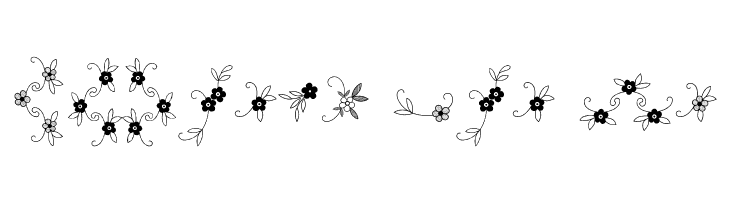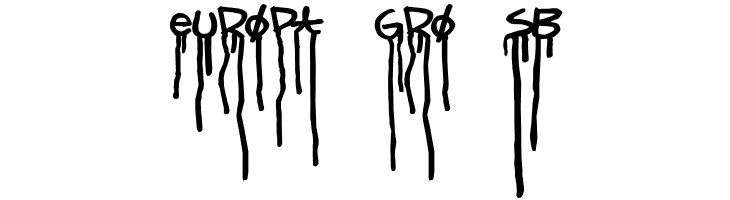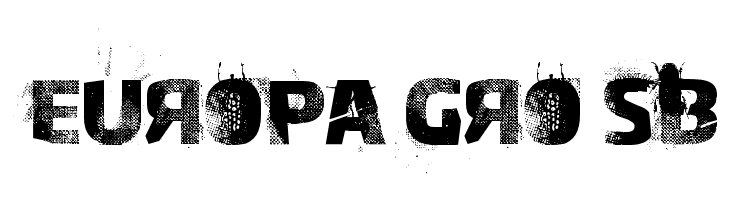
Intricate floral and ornamental patterns with a whimsical, hand-drawn feel.
A dripping, gothic-style font with a bold, artistic flair.
A bold, angular, and mystical font with sharp edges and high contrast.
A dripping, horror-themed font with jagged, melting characters.
A whimsical, gothic-style font with irregular strokes and playful curves.
A bold, distressed font ideal for spooky, horror-themed designs.
A bold, distressed font with insect silhouettes and a grunge aesthetic.
A bold, geometric font inspired by classic mechanical scoreboards.
A bold, jagged font with a gothic, horror-inspired style.